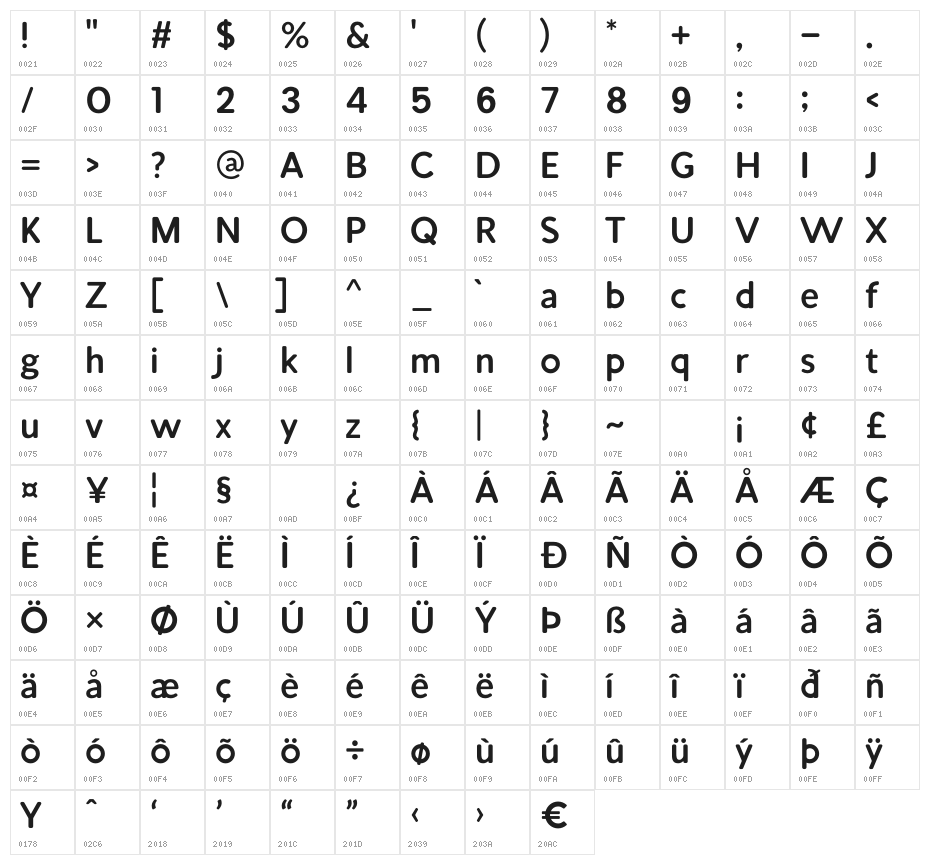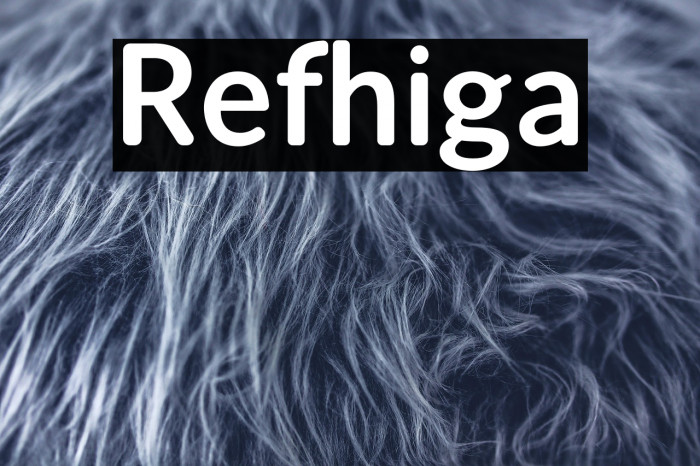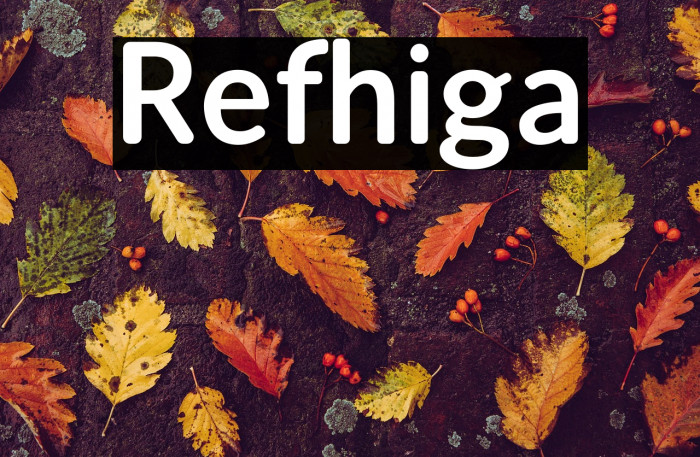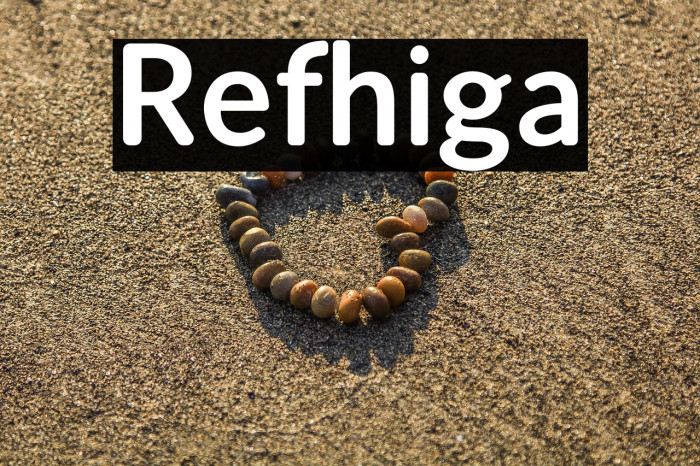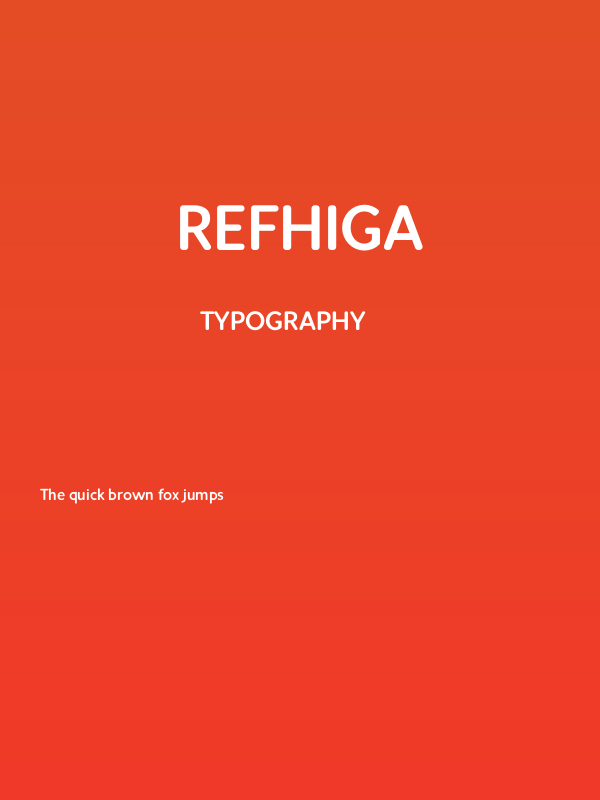
Refhiga Font
Refhiga Description
This font features a clean and modern sans-serif design with smooth, rounded edges that give it a friendly and approachable appearance. The characters are evenly spaced, providing a balanced and harmonious look. The uppercase letters are bold and assertive, while the lowercase letters maintain a consistent style with a slightly softer touch. The numerals are clear and easily distinguishable, making them suitable for various applications. Special characters are well-integrated, maintaining the overall aesthetic of the font. This font is versatile and can be used in both digital and print media, offering readability and style.